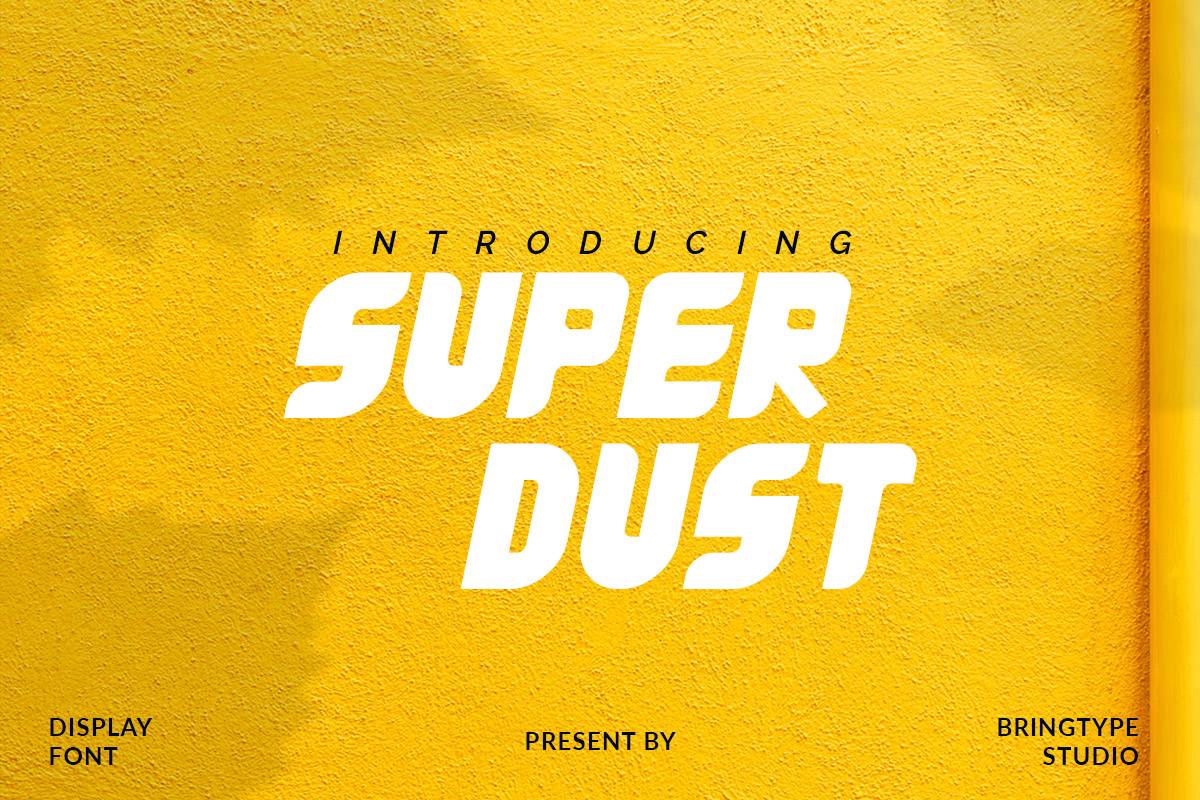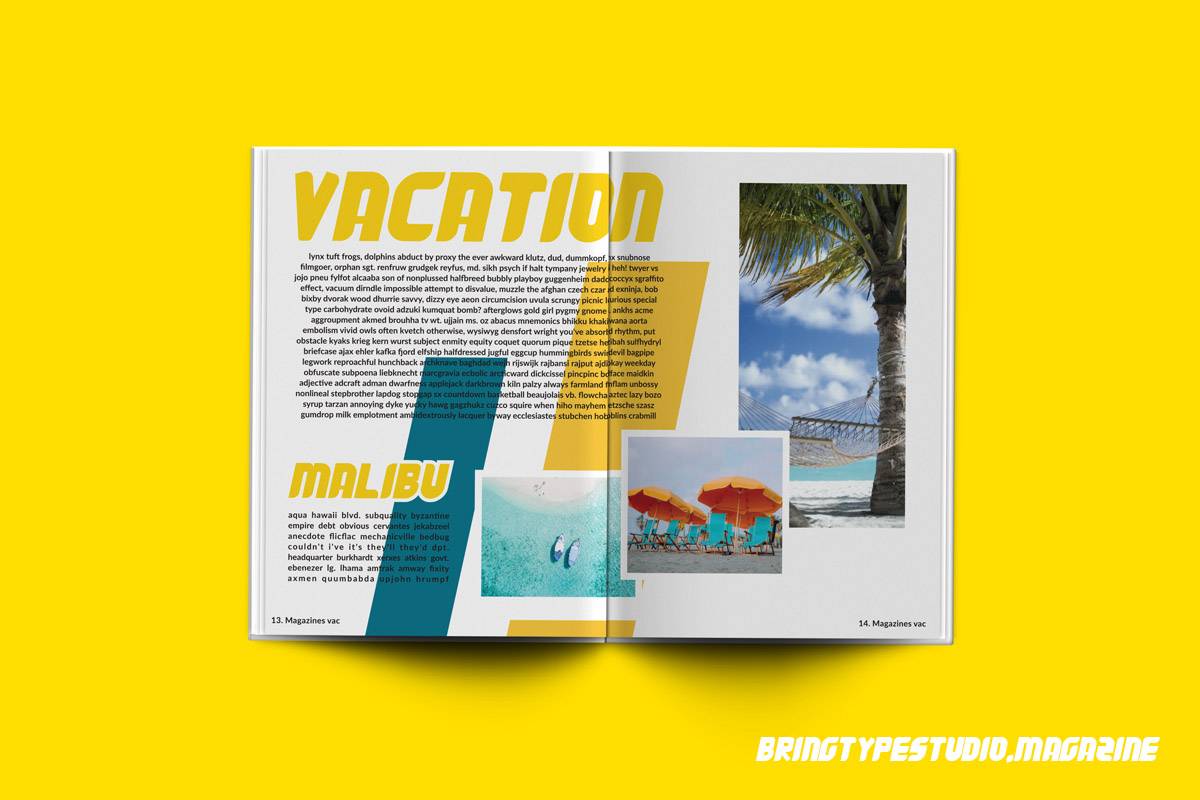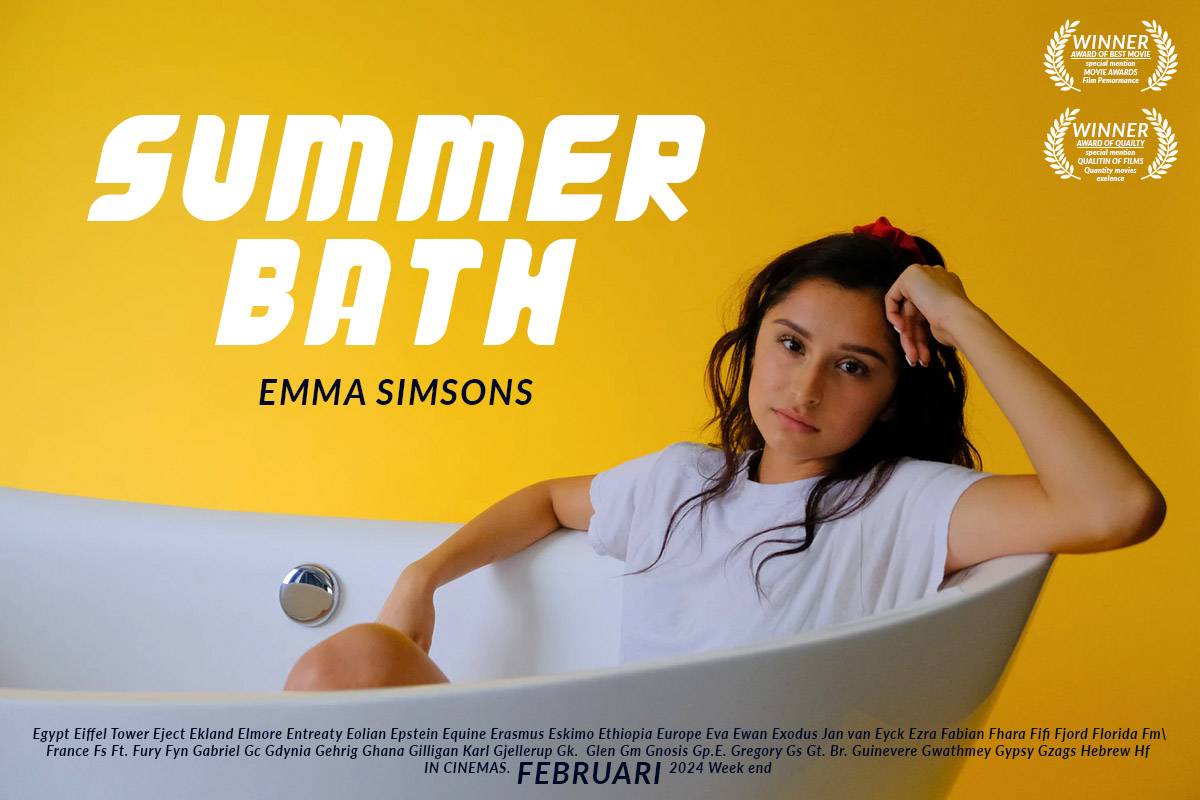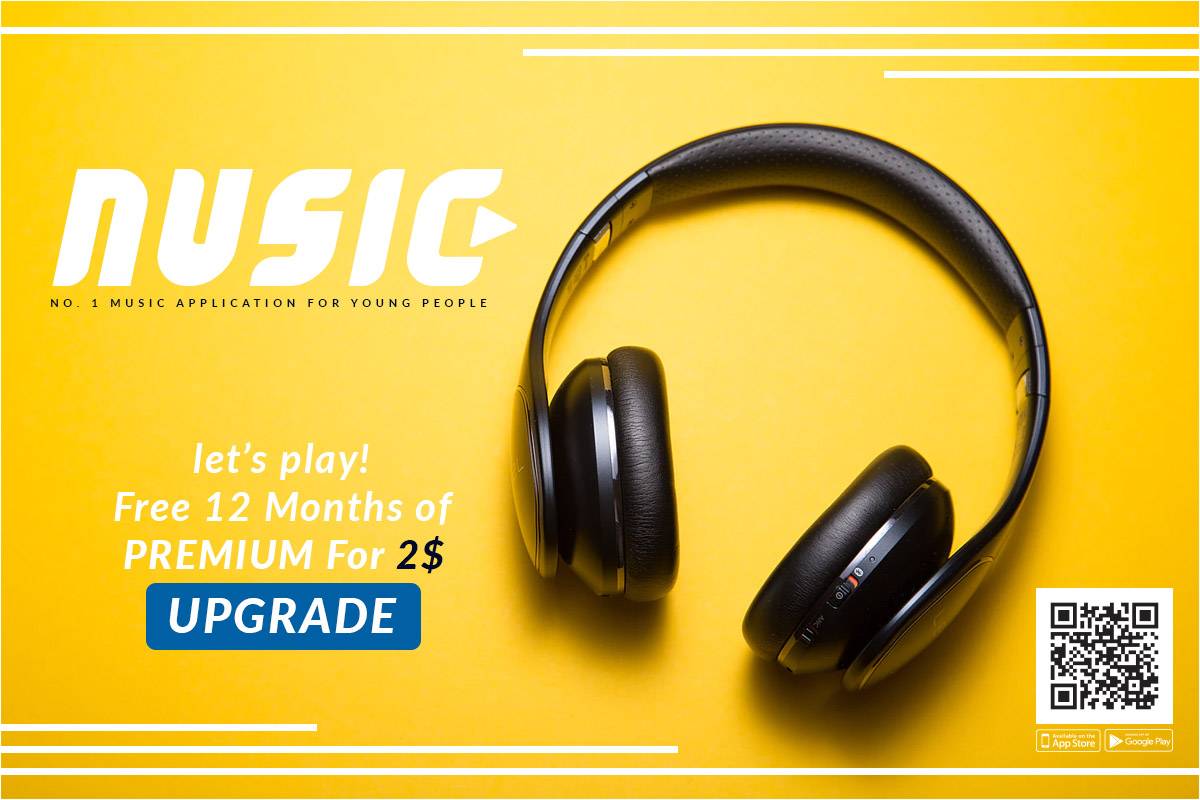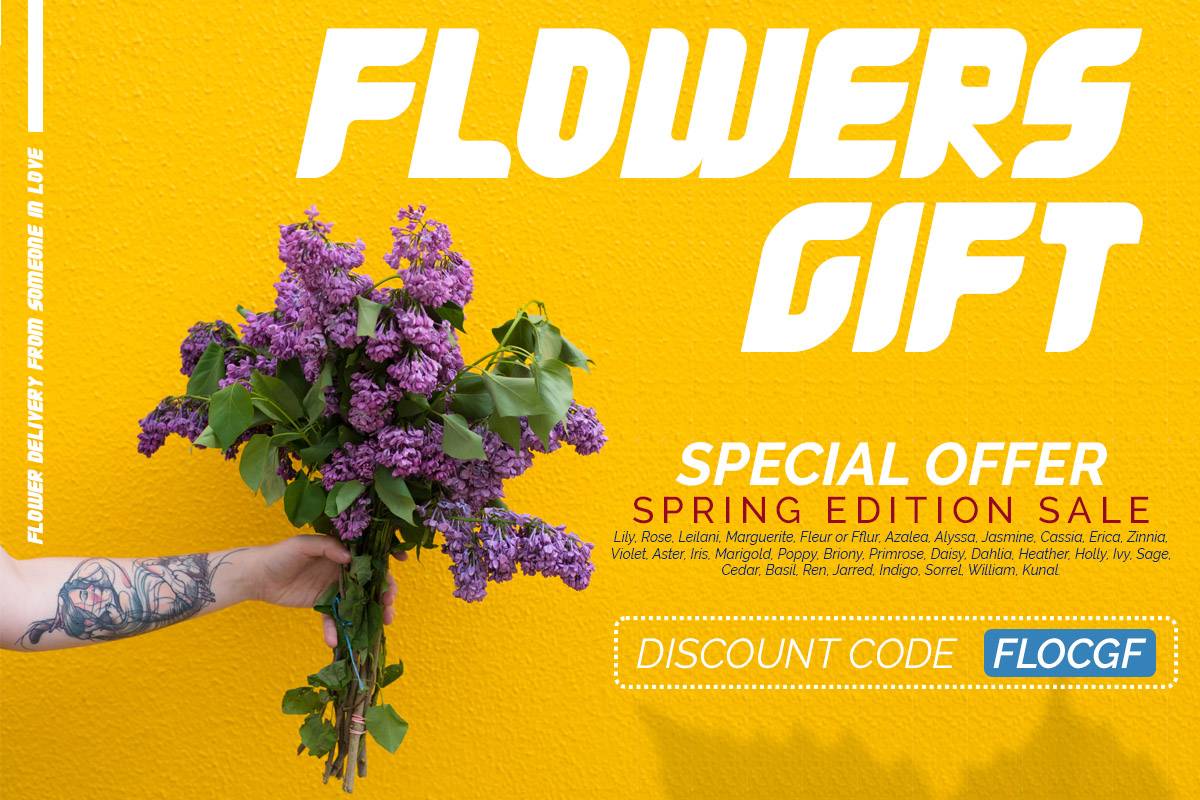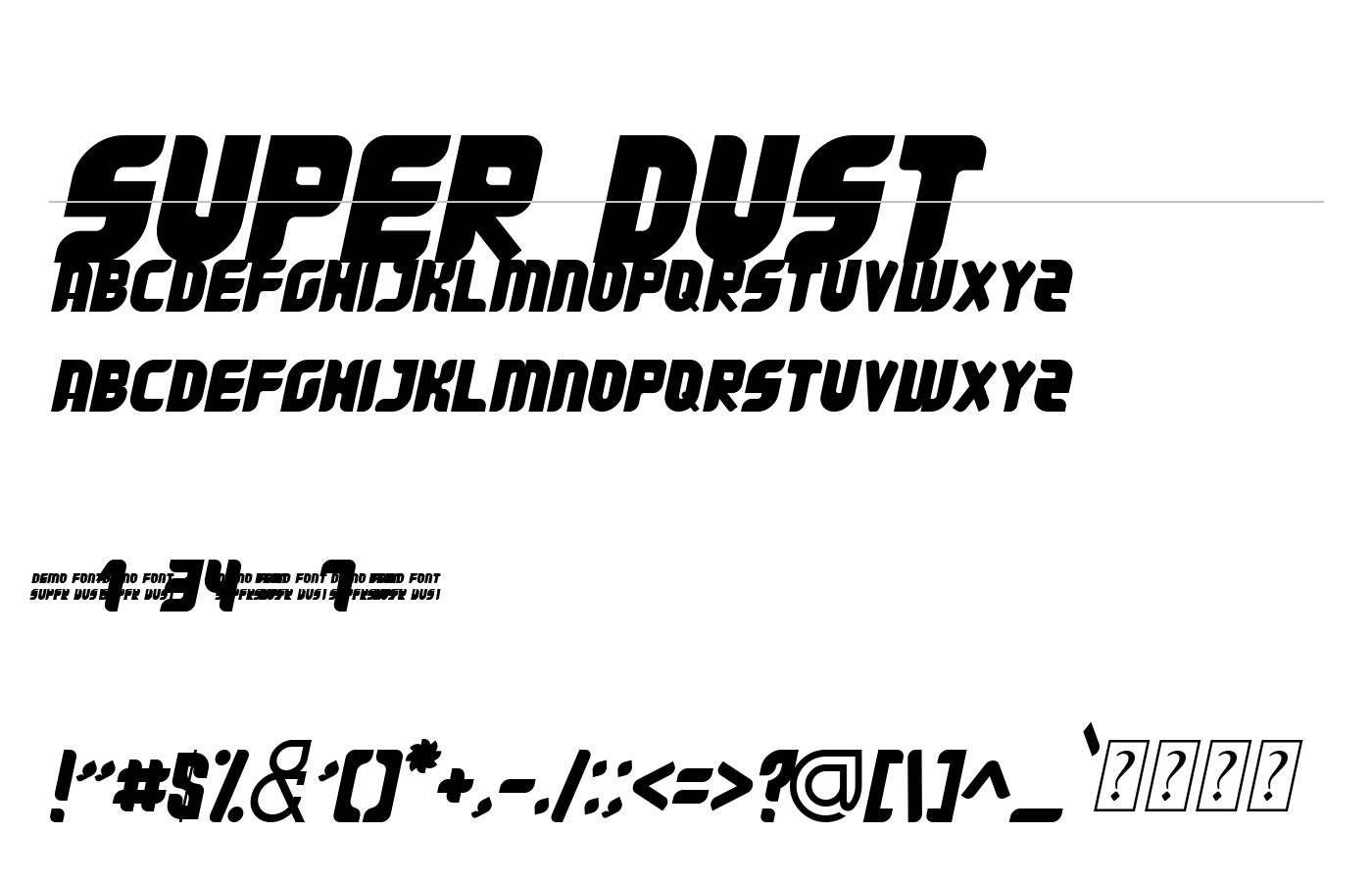
Super Dust is a bold, condensed sans serif font with a strong, futuristic vibe. Its thick, slightly rounded strokes and italicized, tight letterforms convey a sense of speed and energy, making it ideal for dynamic headlines, logos, or any design seeking a modern, tech-inspired look.
Super Dust Font
About Super Dust Font